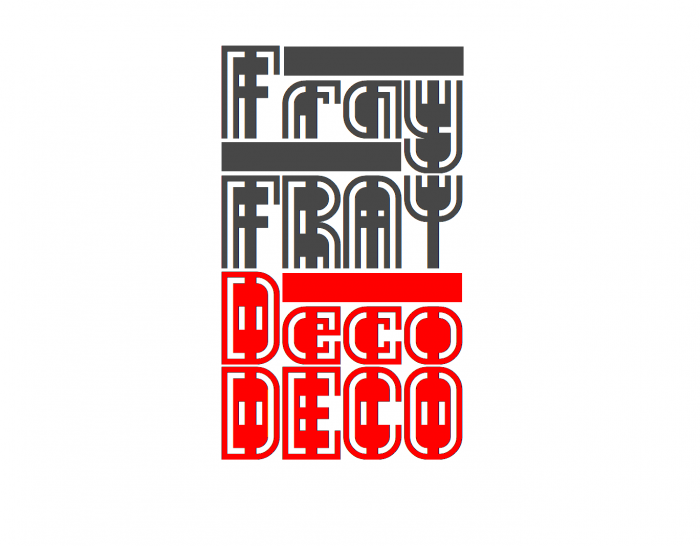
Fray series.
Does this count as outline? ;P
Looks pretty cool, but I think you need to take another look at I and J. They seem a little touchy. U should either increase letter spacing between I and J or make I's right-side outline thinner.
Not realy, so okay, vertical stroke... ^^
@JingYo I think so:)
@Sed4tives I thought that it was strange myself about I and J, I improved it. In addition, spacing included an error. I'm sorry.
Yep, now it looks good. Anyway, stellar work!